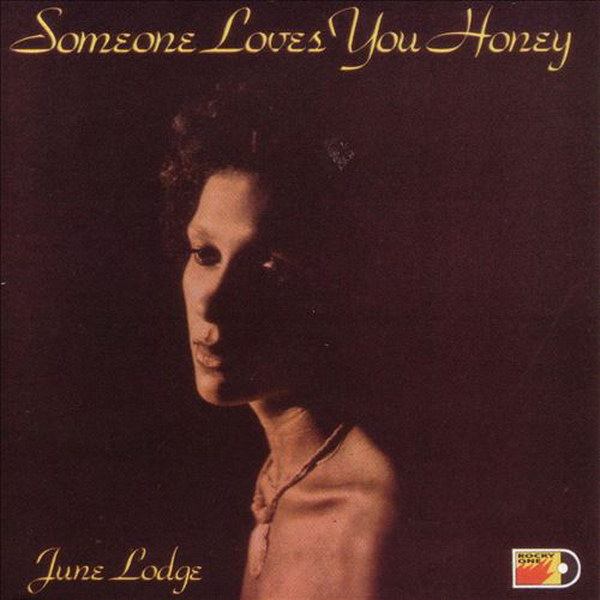
Someone Loves You Honey Font
Fonts in UseSomeone Loves You Honey is a reggae album by June Lodge, released in 1982. The title track, "Someone Loves You Honey," became a hit single and is considered one of her signature songs.